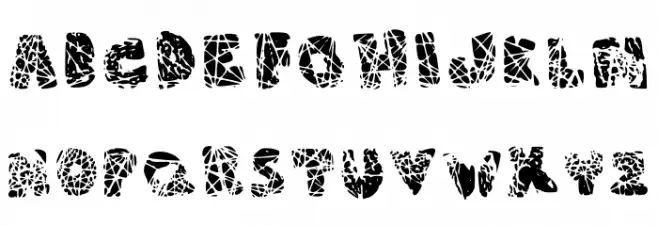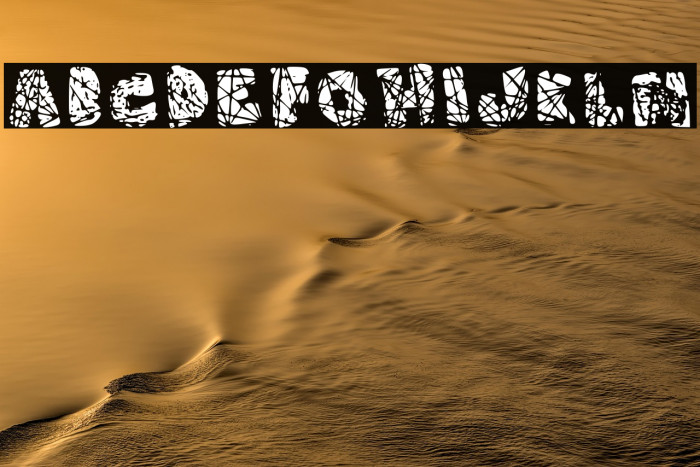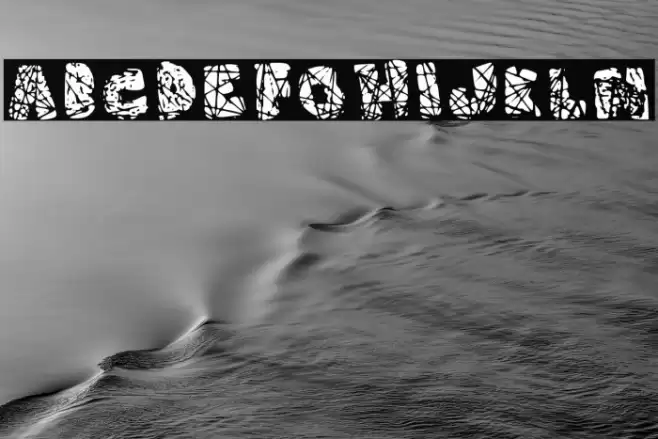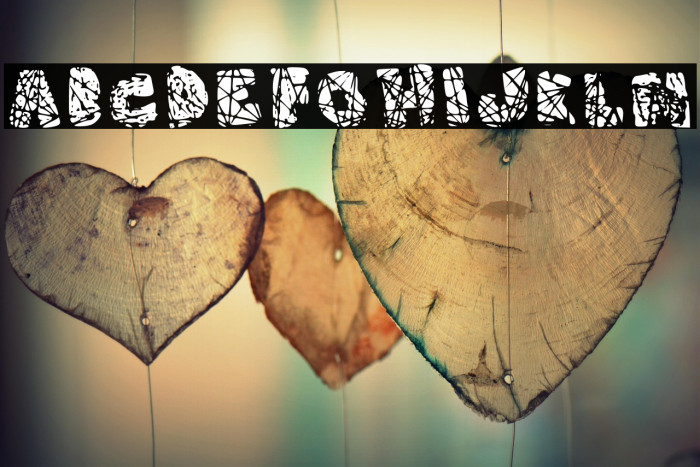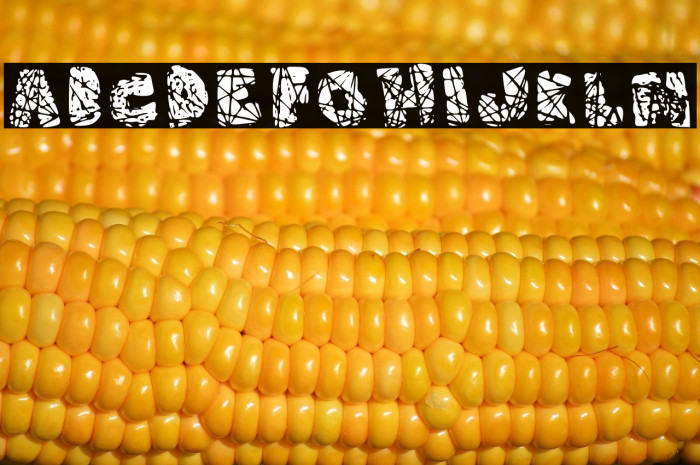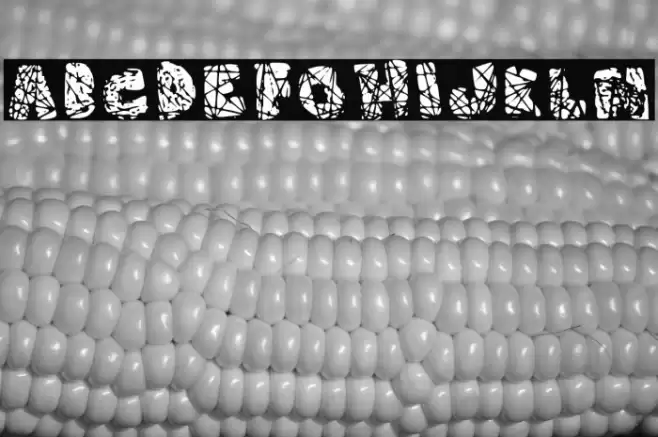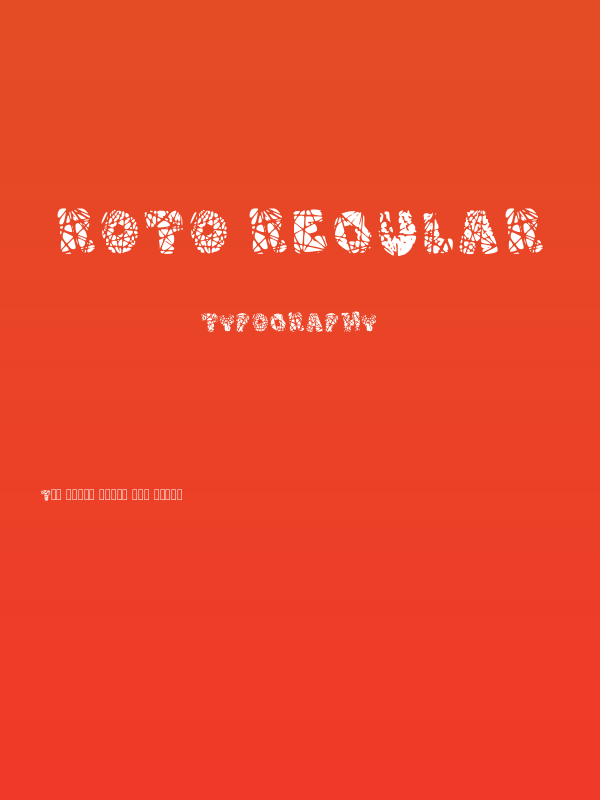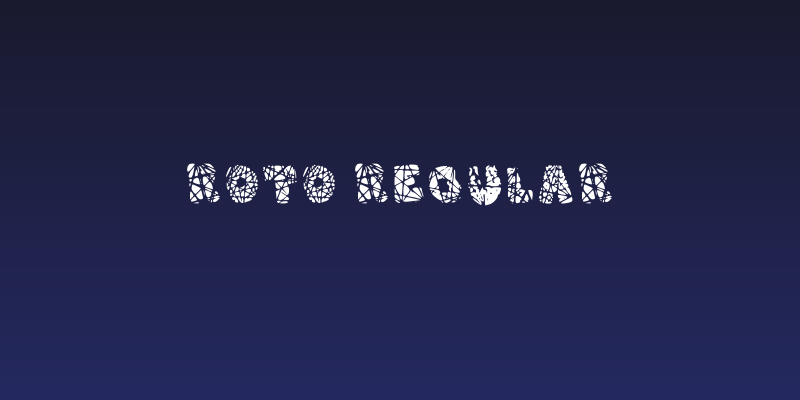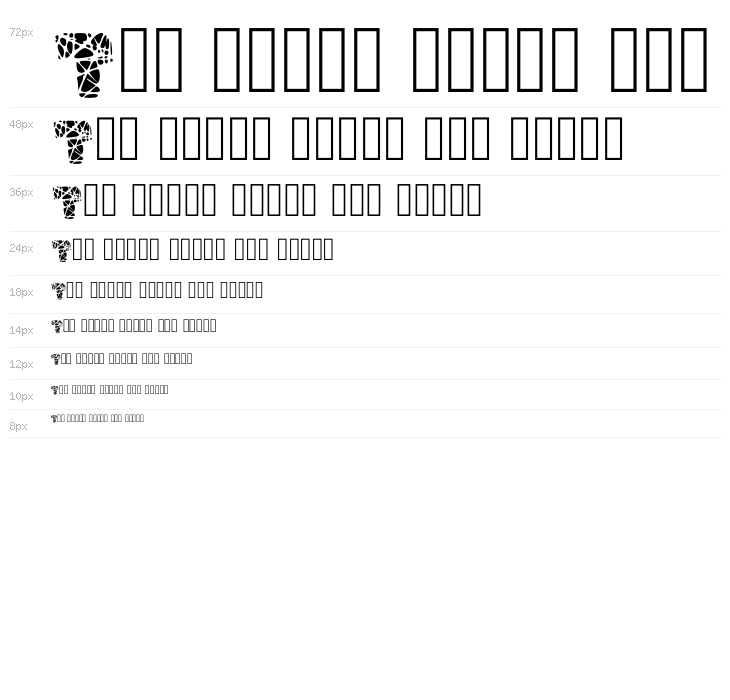
Roto Regular Font
Roto Regular Description
This font features a unique, abstract design with a web-like pattern filling each character. The letters are bold and have a decorative appearance, making them stand out with their intricate detailing. The style is highly artistic, with a modern twist that combines geometric shapes and negative space to create a visually striking effect. Each character maintains a consistent pattern, providing a cohesive look across the alphabet. This font is ideal for projects that require a bold statement or an artistic touch, as it draws attention with its unconventional design.
| Use Case | Headlines, Logos, Artistic projects |
| Proposed Projects | Ideal for artistic posters, album covers, branding for creative industries, and unique logo designs. |